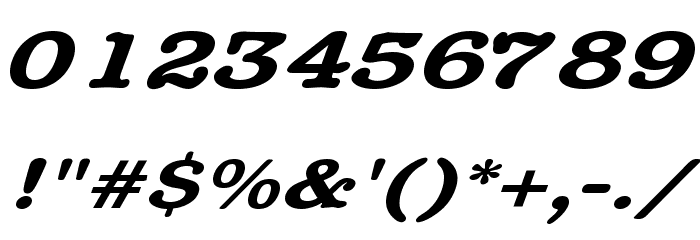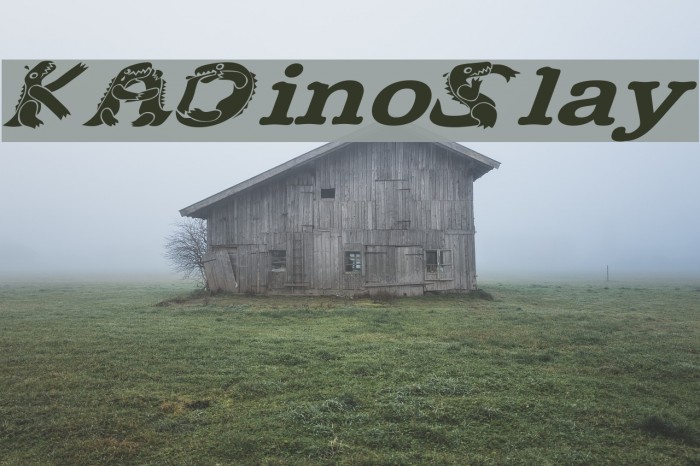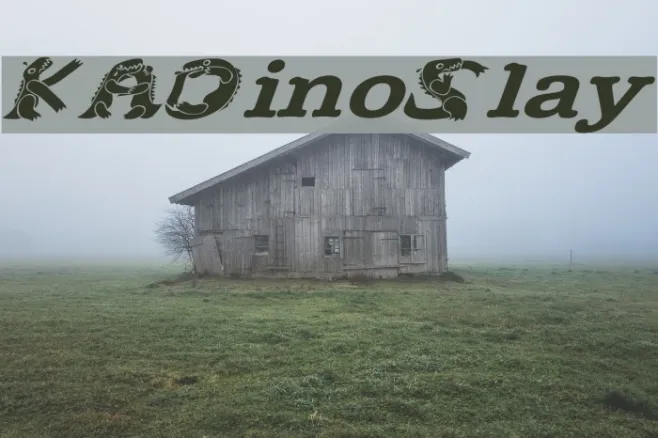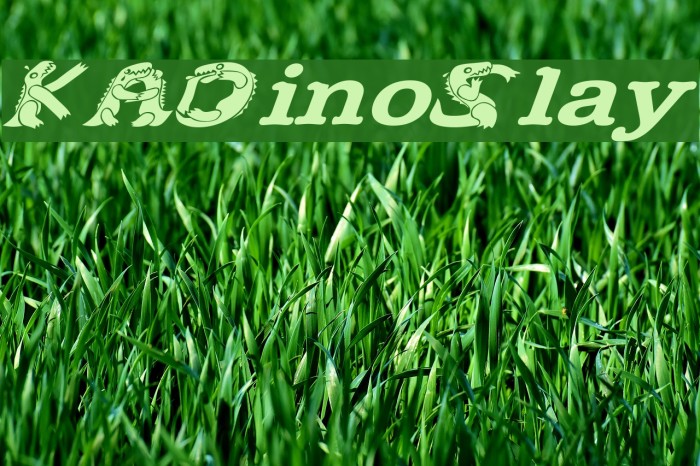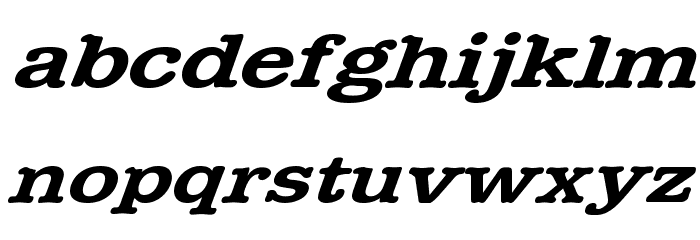
KADinoSlay Font
This font features a bold and dynamic design with a playful, decorative style. The uppercase letters are adorned with intricate, swirling patterns that give them a unique and eye-catching appearance. The lowercase letters maintain a more traditional serif style, providing a nice contrast to the ornate uppercase. The numerals and special characters are consistent with the lowercase, offering a cohesive look across all elements. This font's distinct style makes it ideal for creative projects that require a touch of whimsy and flair.
A bold, decorative font with ornate uppercase and traditional serif lowercase.
• Proposed Projects: Ideal for posters, invitations, branding, and any project needing a whimsical touch.
• Category: Decorative/Display
• Contrast: High
• Overall Style: Decorative
• Use Case: Headlines, Logos